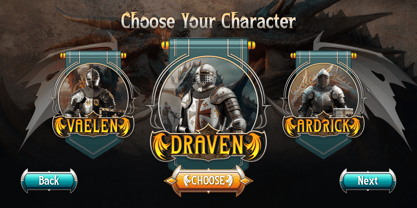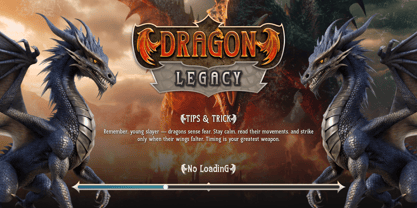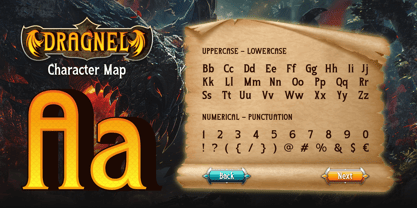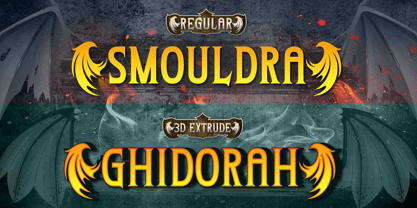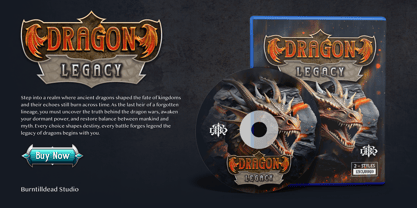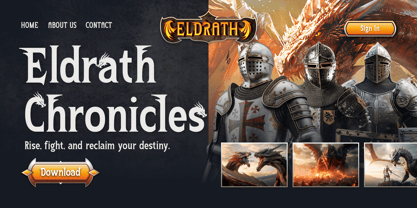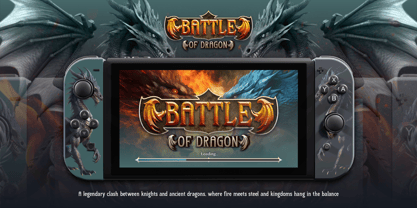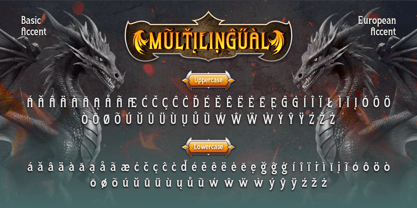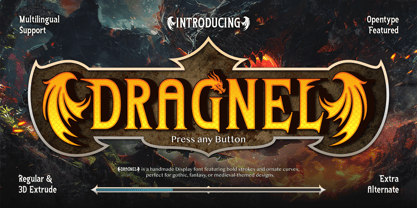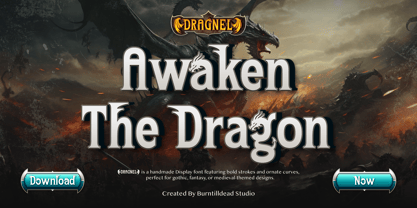
Dragnel
von Burntilldead
Die Schriftfamilie Dragnel wurde von Eric Kurniawan entworfen und von Burntilldead veröffentlicht. Dragnel enthält 2 Stile und Familienpaketoptionen.
Unleash your inner hero with Dragnel, a bold fantasy display font forged in the fires of legend. Inspired by dragons, ancient battles, and medieval quests, this typeface captures the spirit of adventure and bravery. Each letter stands tall with fiery curves and powerful strokes — perfect for epic game titles, fantasy posters, book covers, or anything that calls for a legendary touch. Whether you’re designing for a mythical world or crafting your next heroic project, Dragnel will make your words roar like a dragon. Available in Regular and 3D Extrude styles, with alternates to keep your design alive and dynamic. Features: A - Z set (Uppercase & Lowercase), Number, Alternates, Punctuation, Multilingual